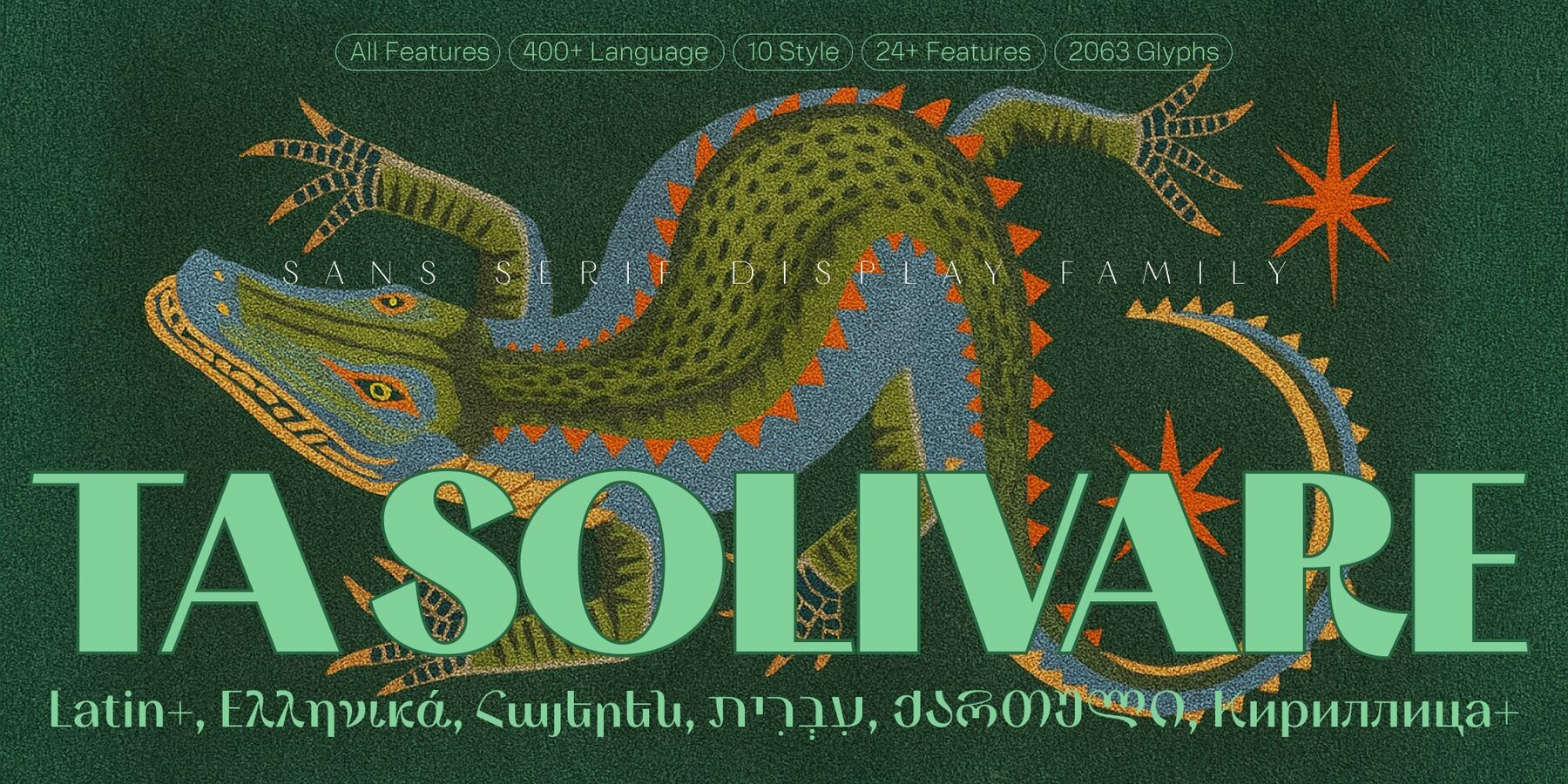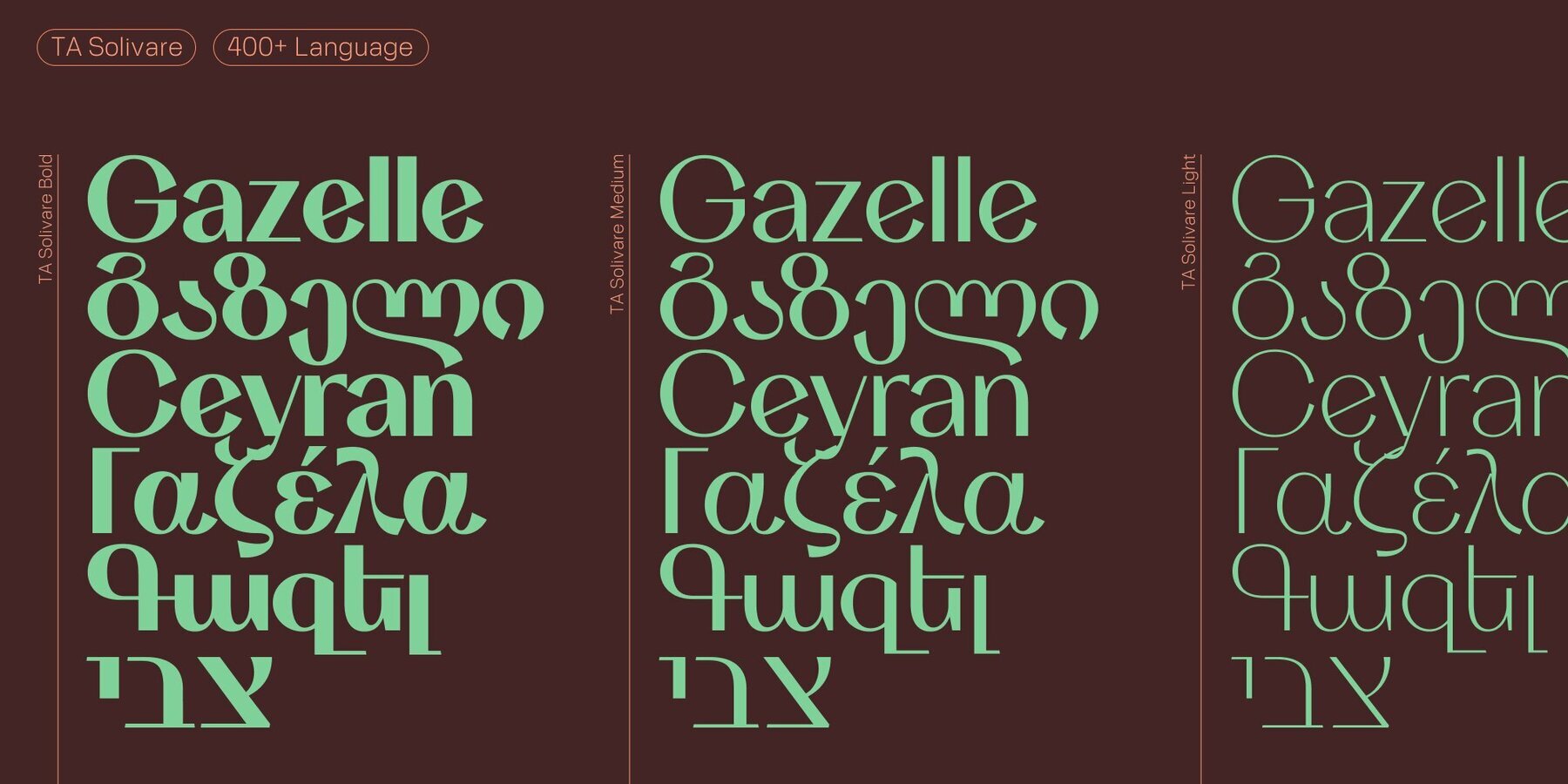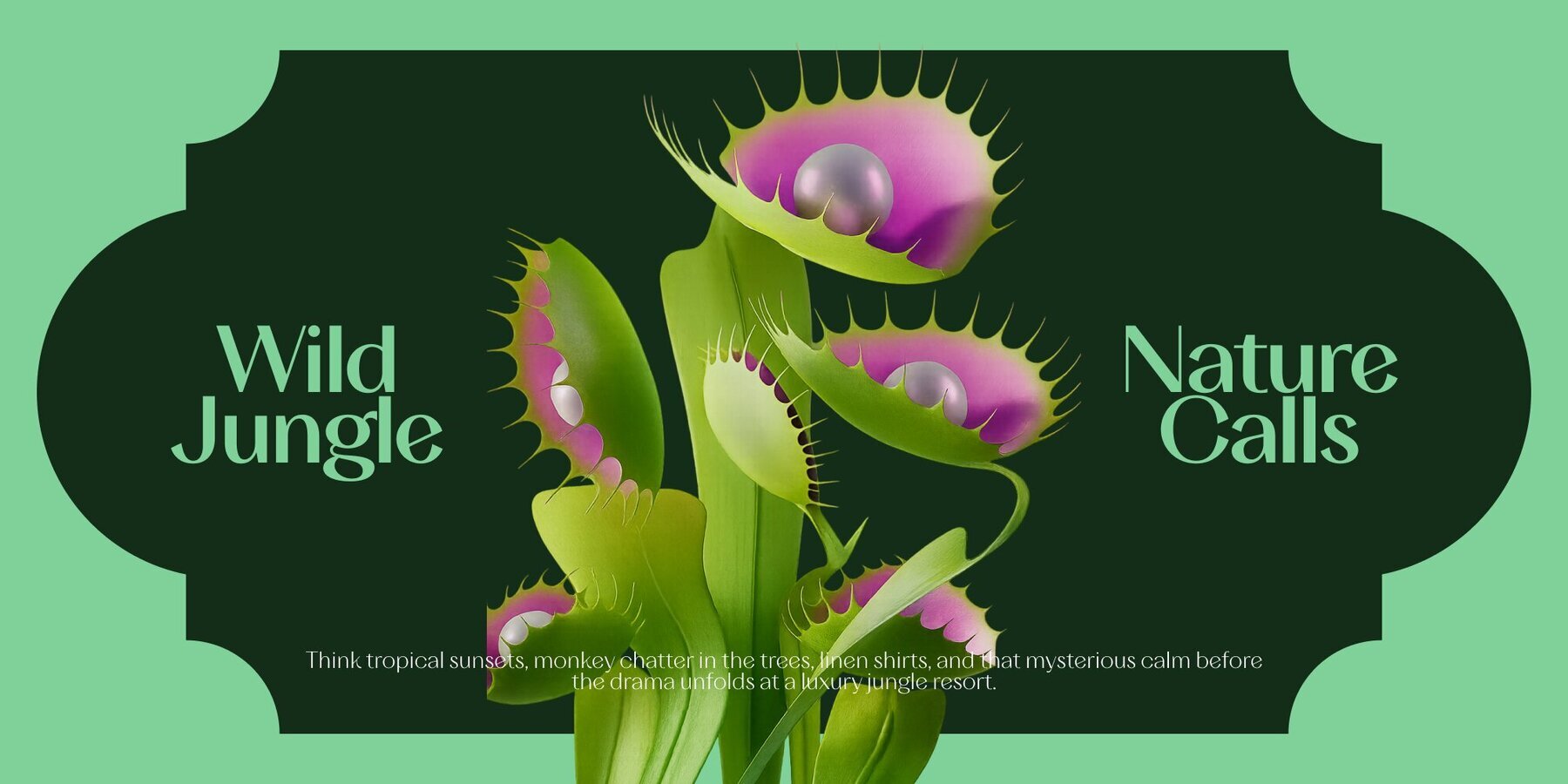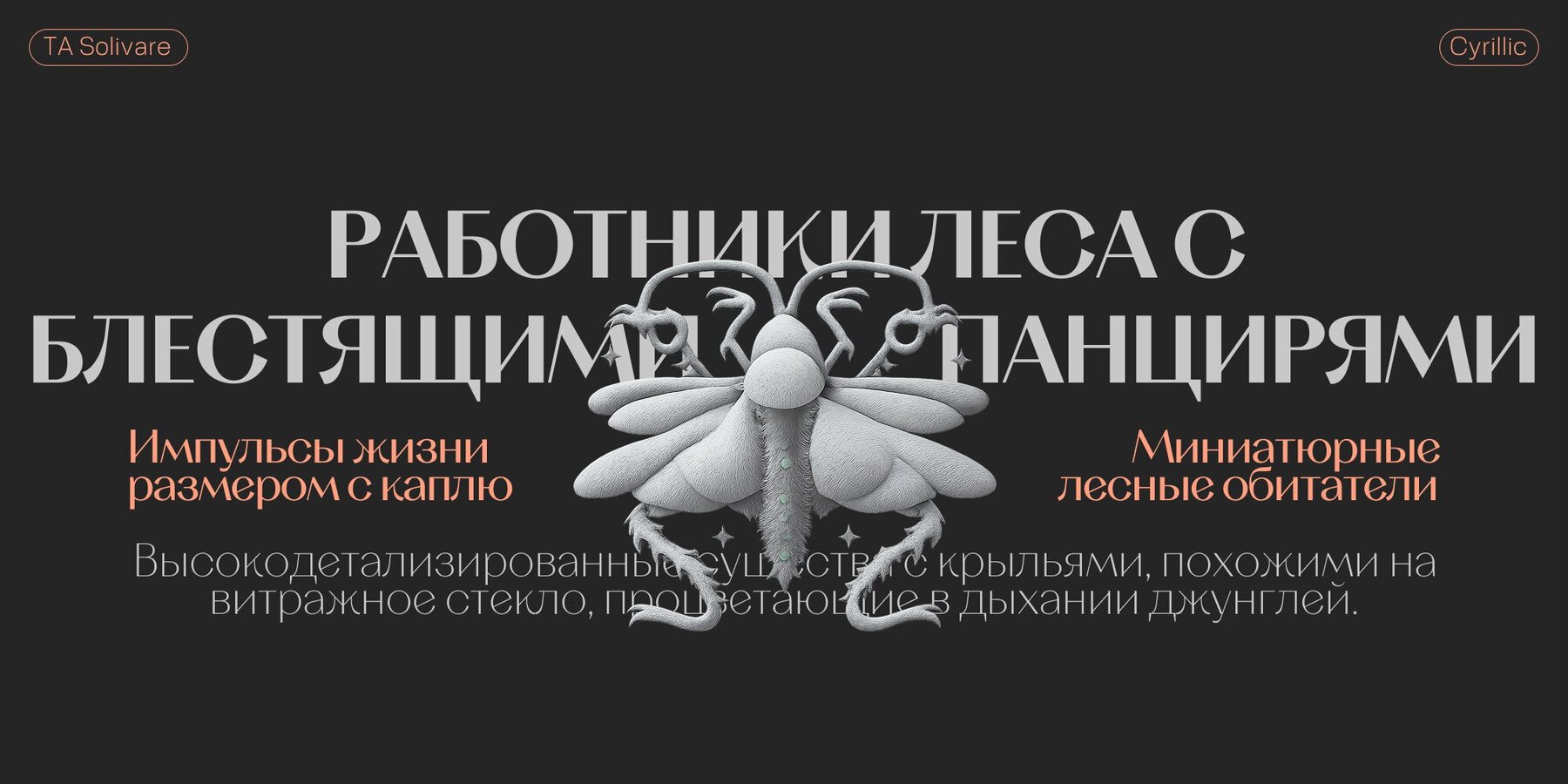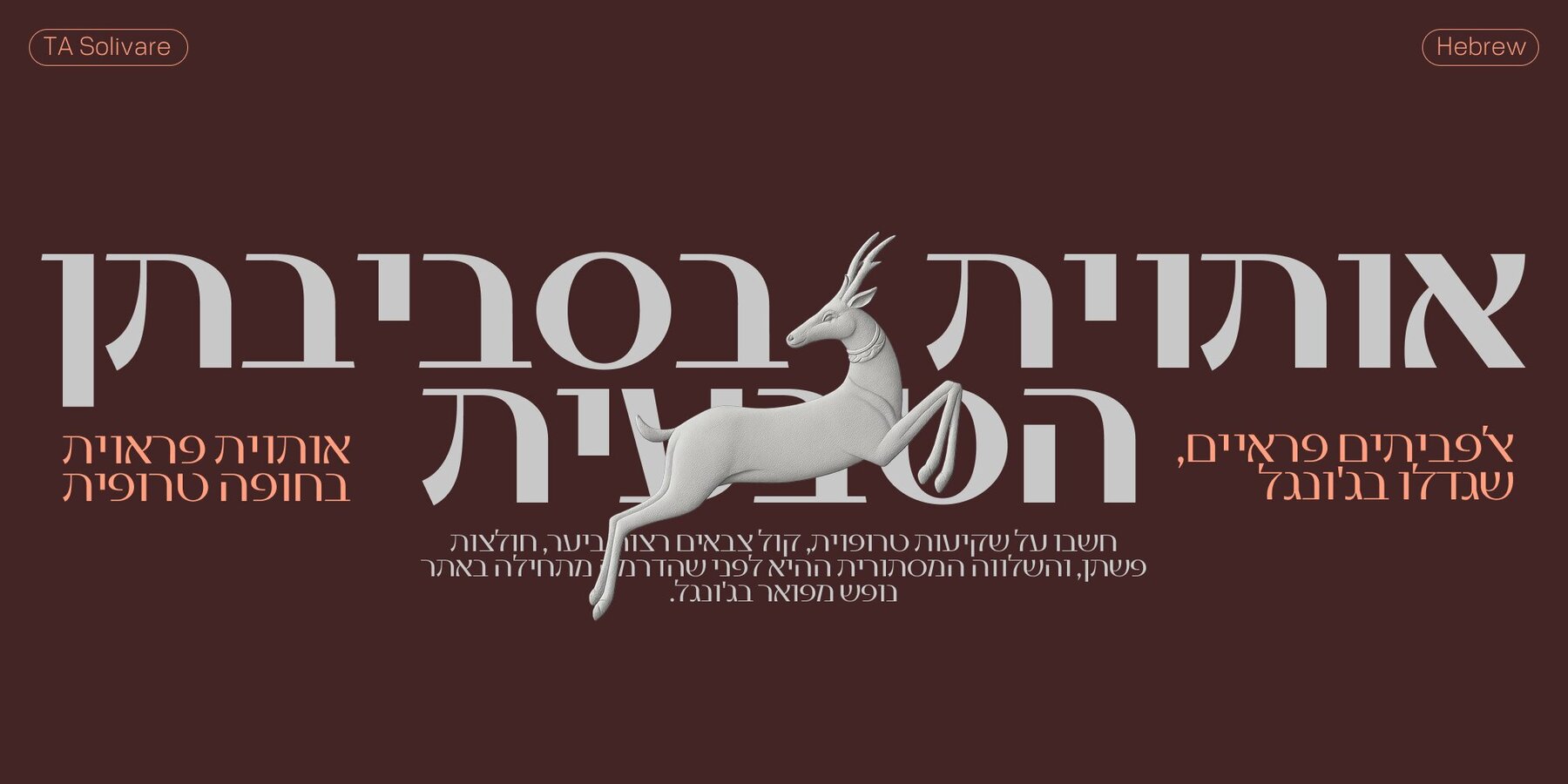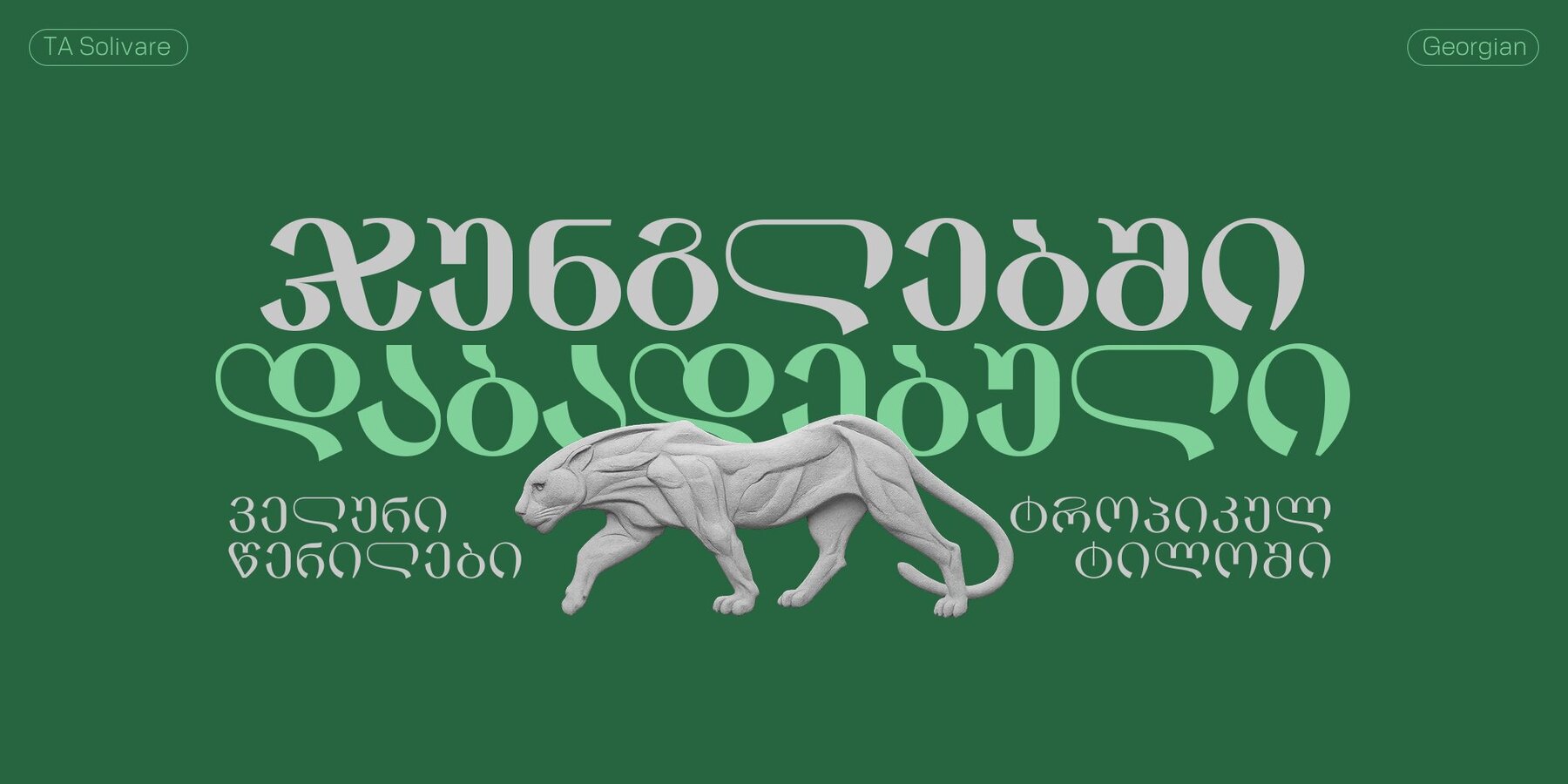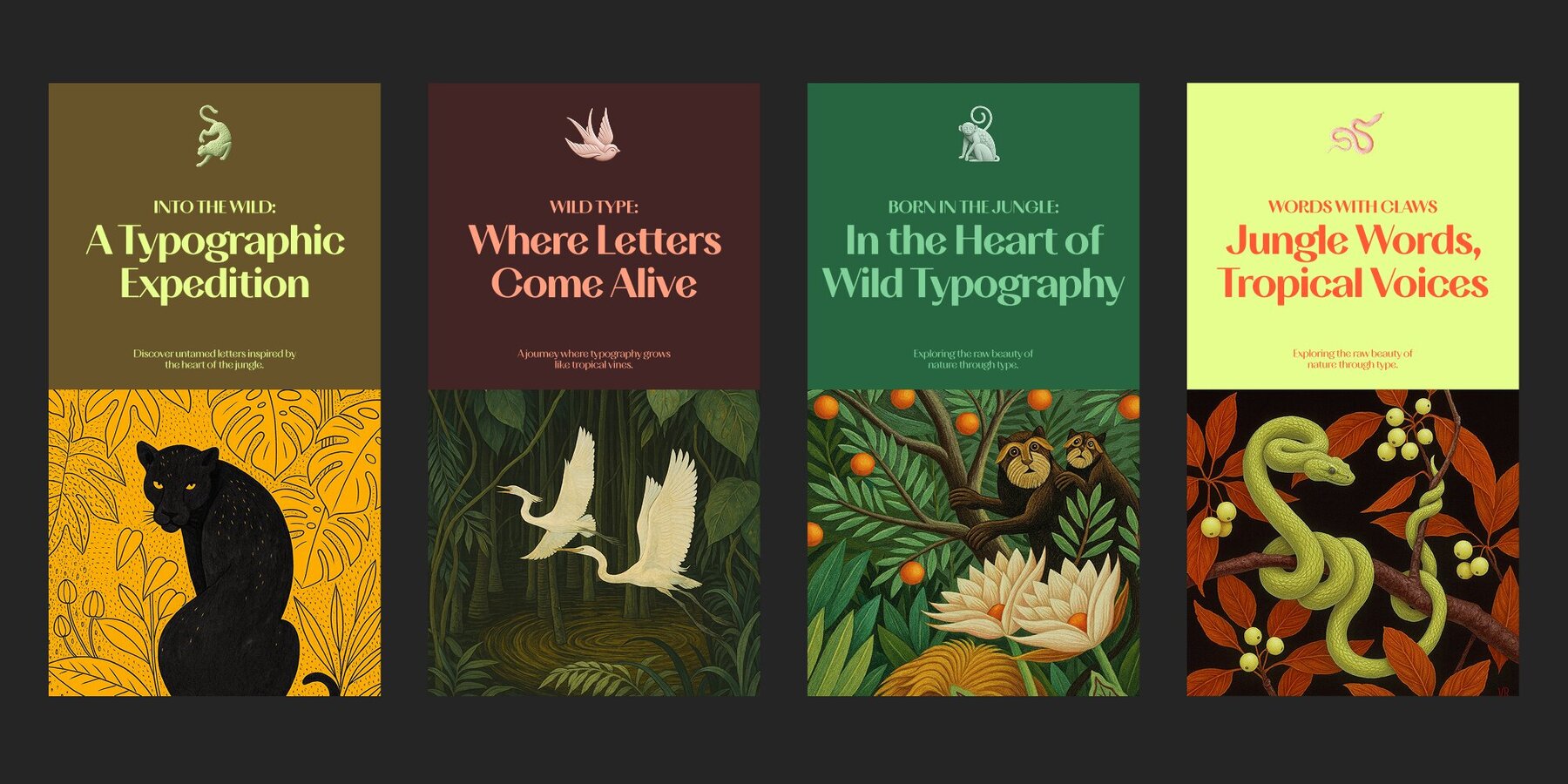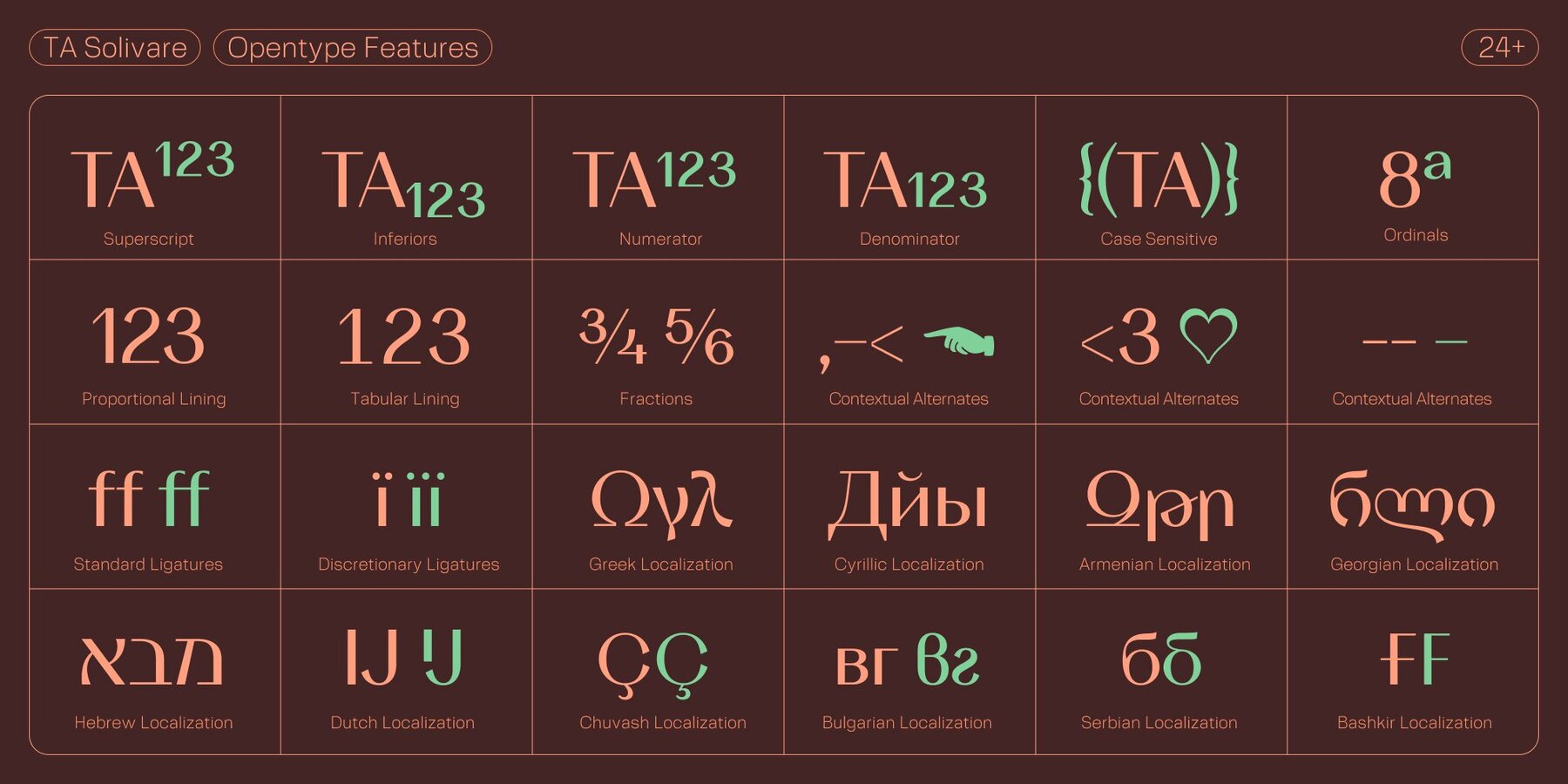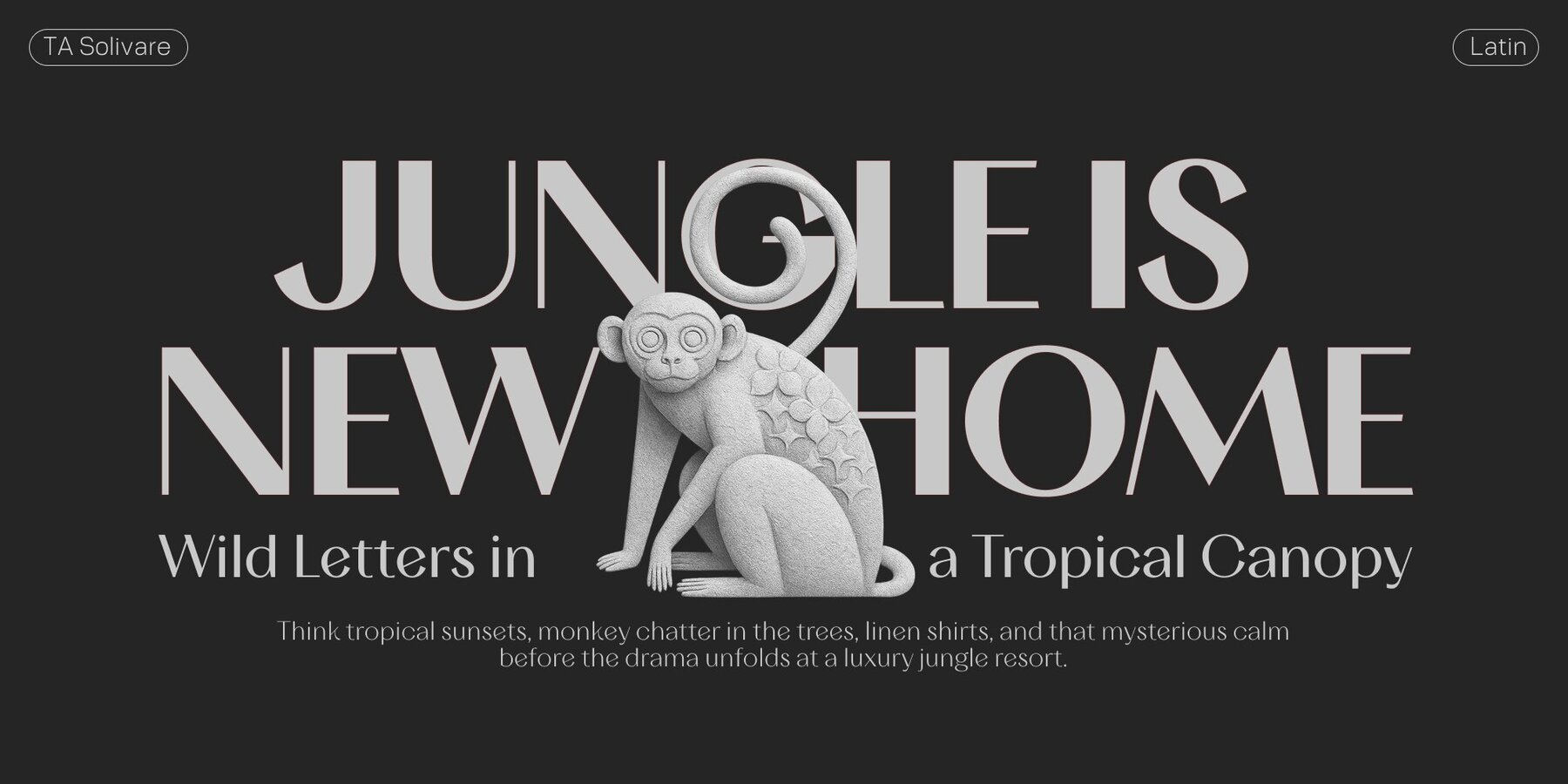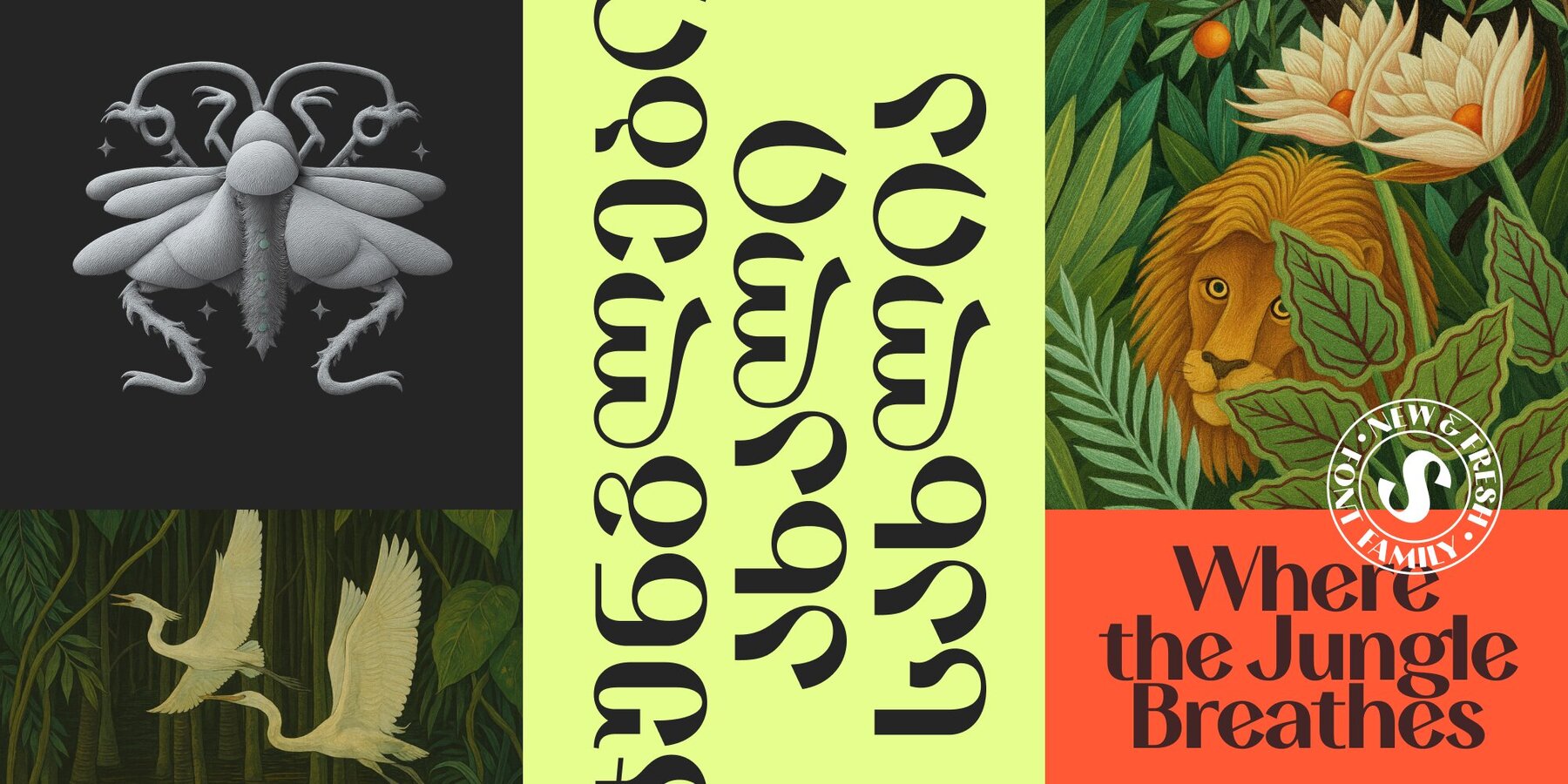
TA Solivare Font
Imagine the allure of a tropical sunset, the soundscape of chattering monkeys amidst the trees, and the relaxed elegance of linen shirts. TA Solivare captures this essence effortlessly with its hand-drawn curves and vintage charm, evoking the luxurious ambiance reminiscent of a jungle resort. The typeface feels tailor-made for a show like The White Lotus—lush in its presentation, cheeky in its details, and undeniably captivating in its wildness.TA Solivare: Tropical Flair Meets Retro Vibes